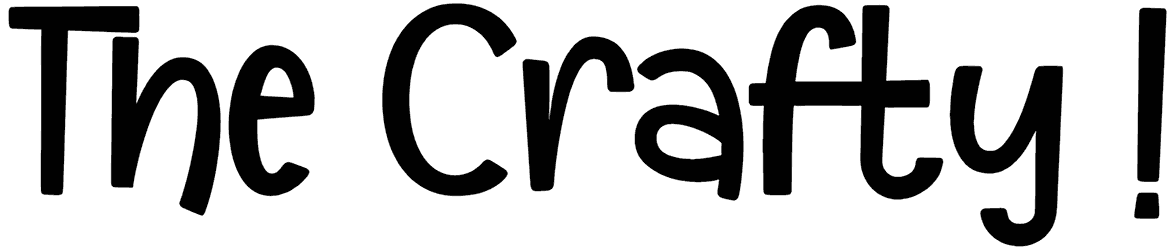
The Crafty ! Font
Meet The Crafty ! a cartoon font with a facetious and jovial mood. With playful letters, it can be a cute display for a lot of items such as kids’ designs, school posters, comics, and many others like. The Crafty ! with three distinct versions to offer, would provide you with broad choices of unique patterns.